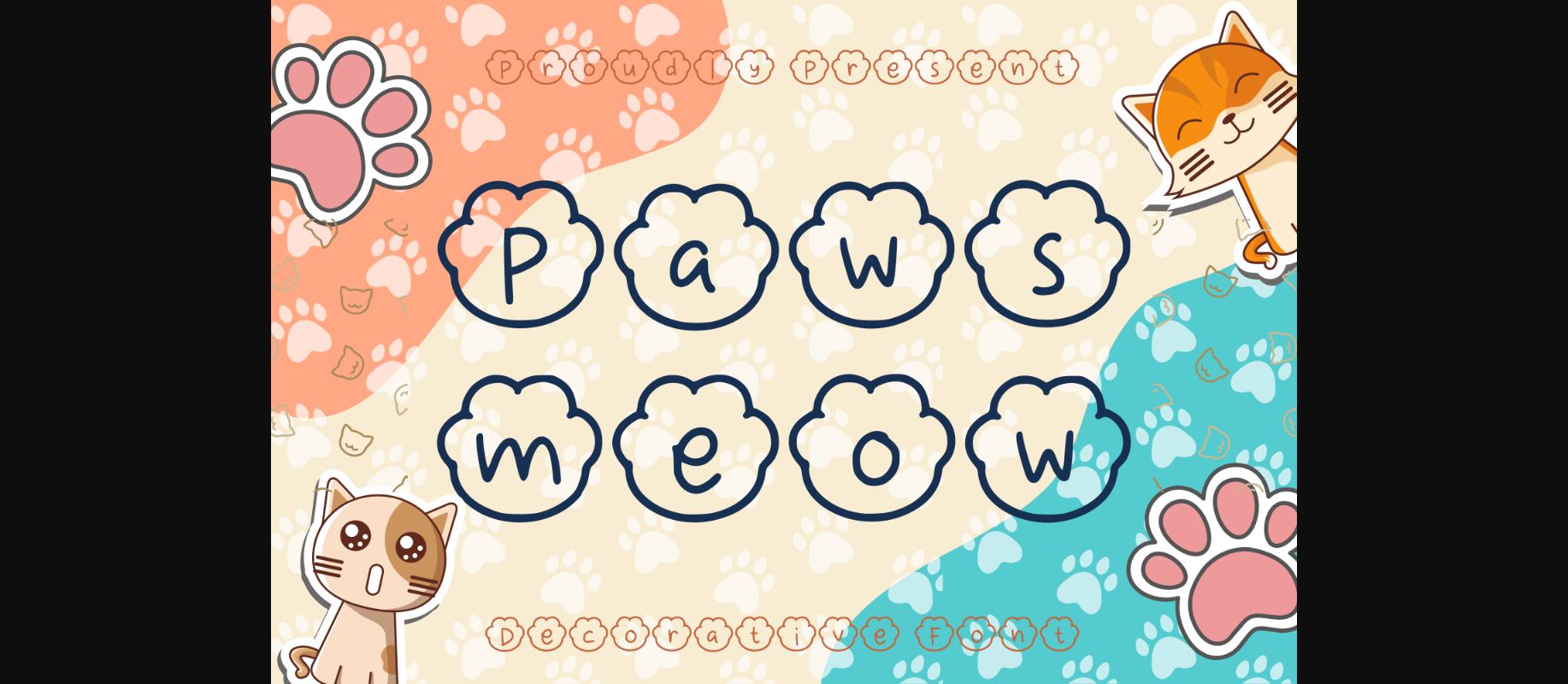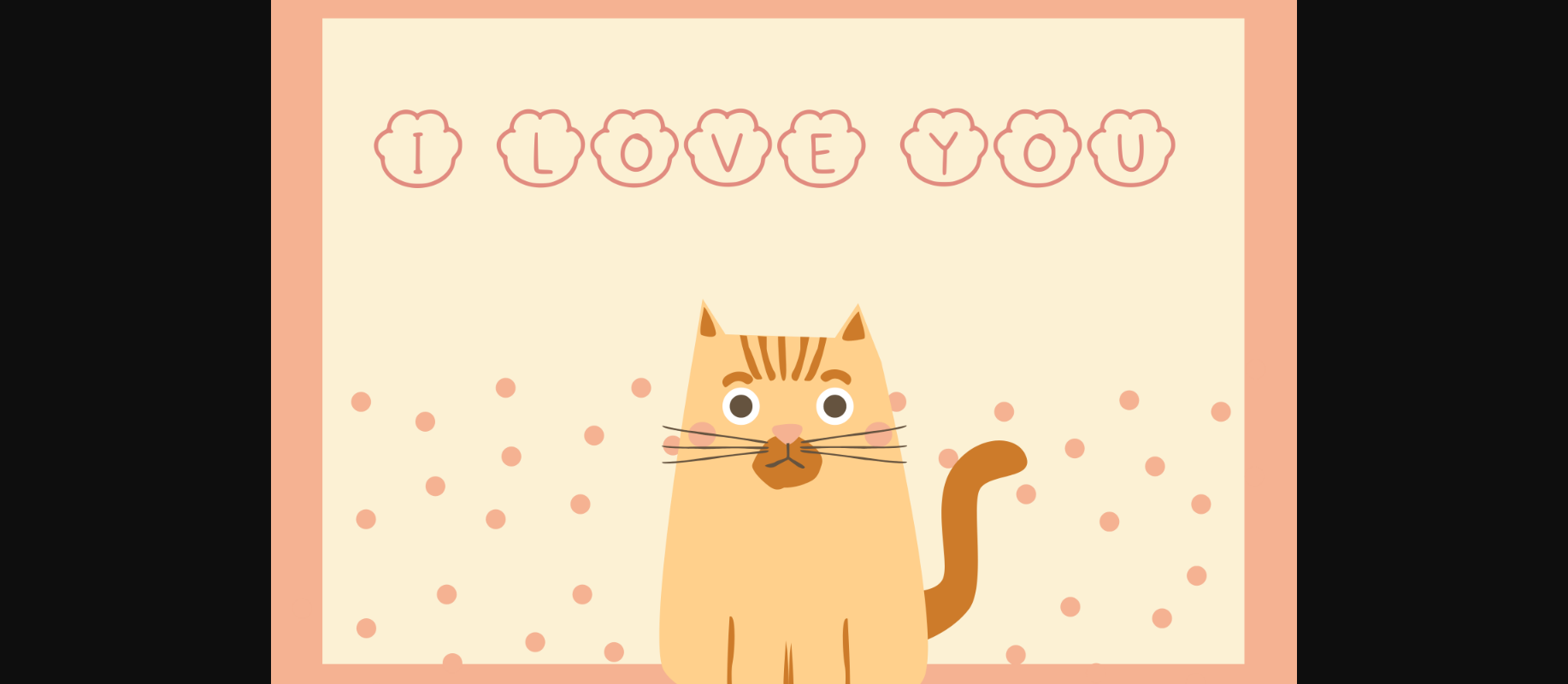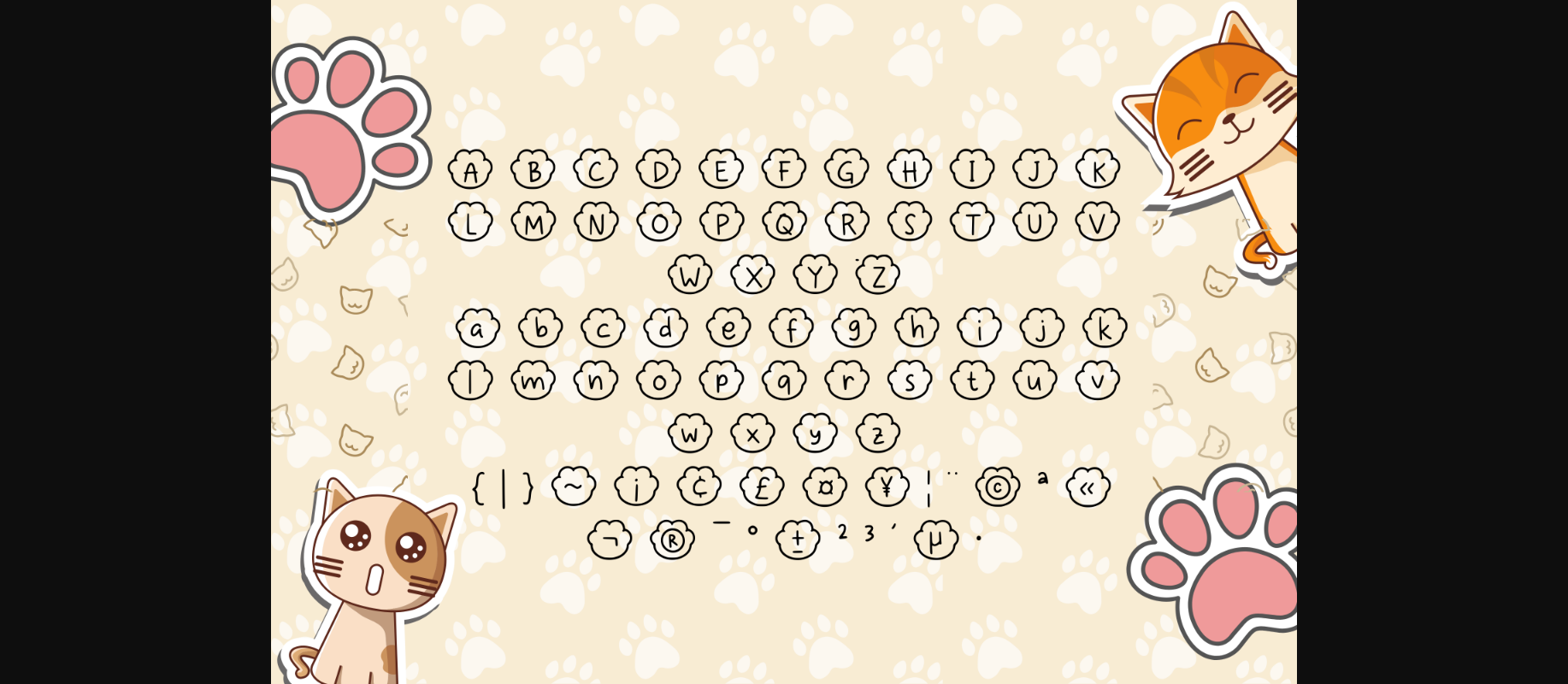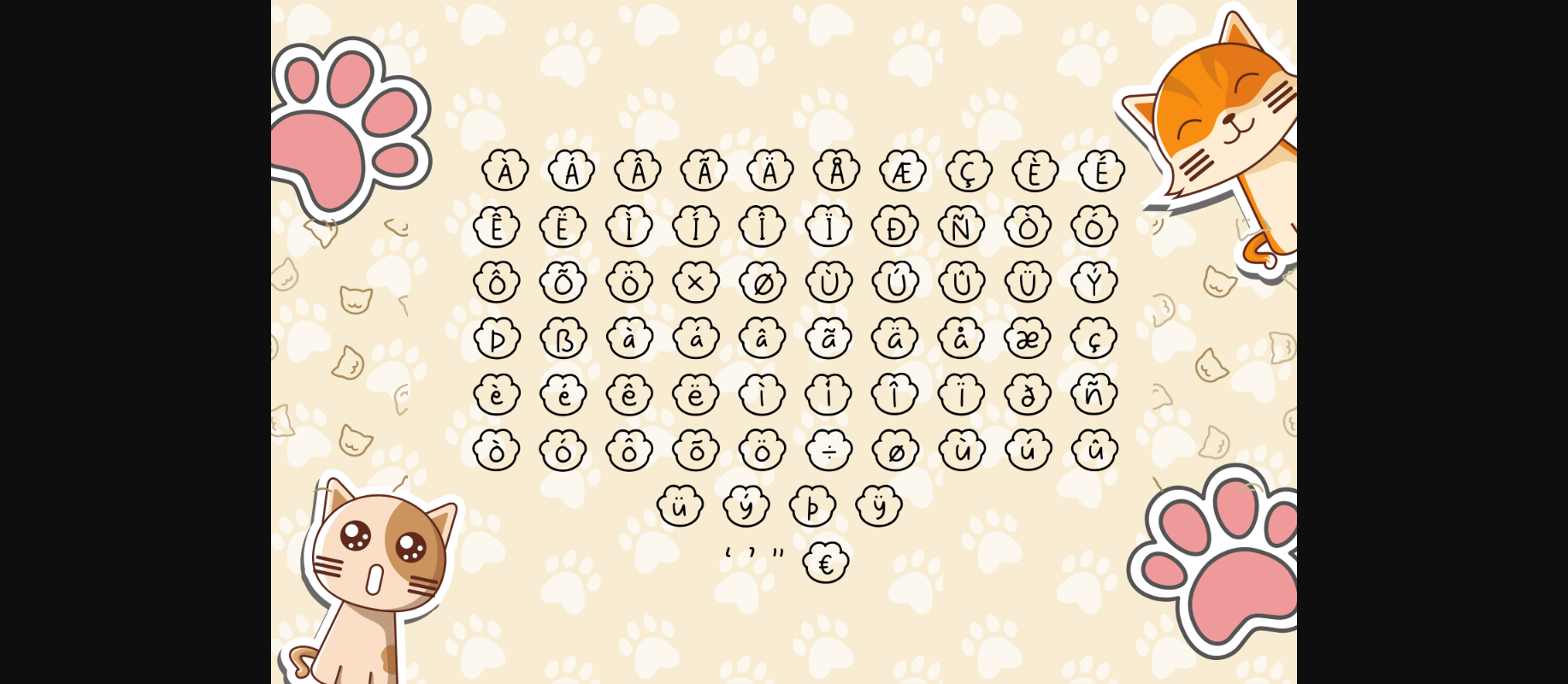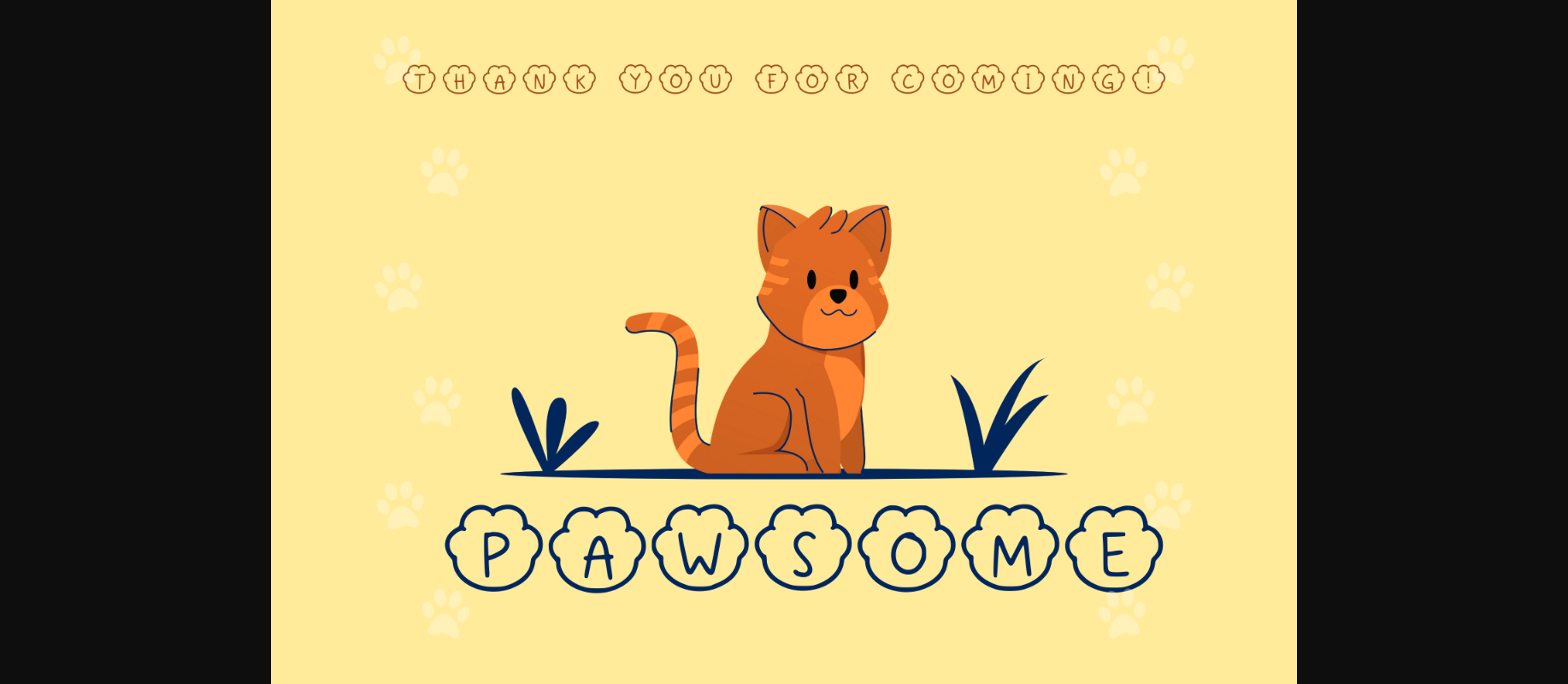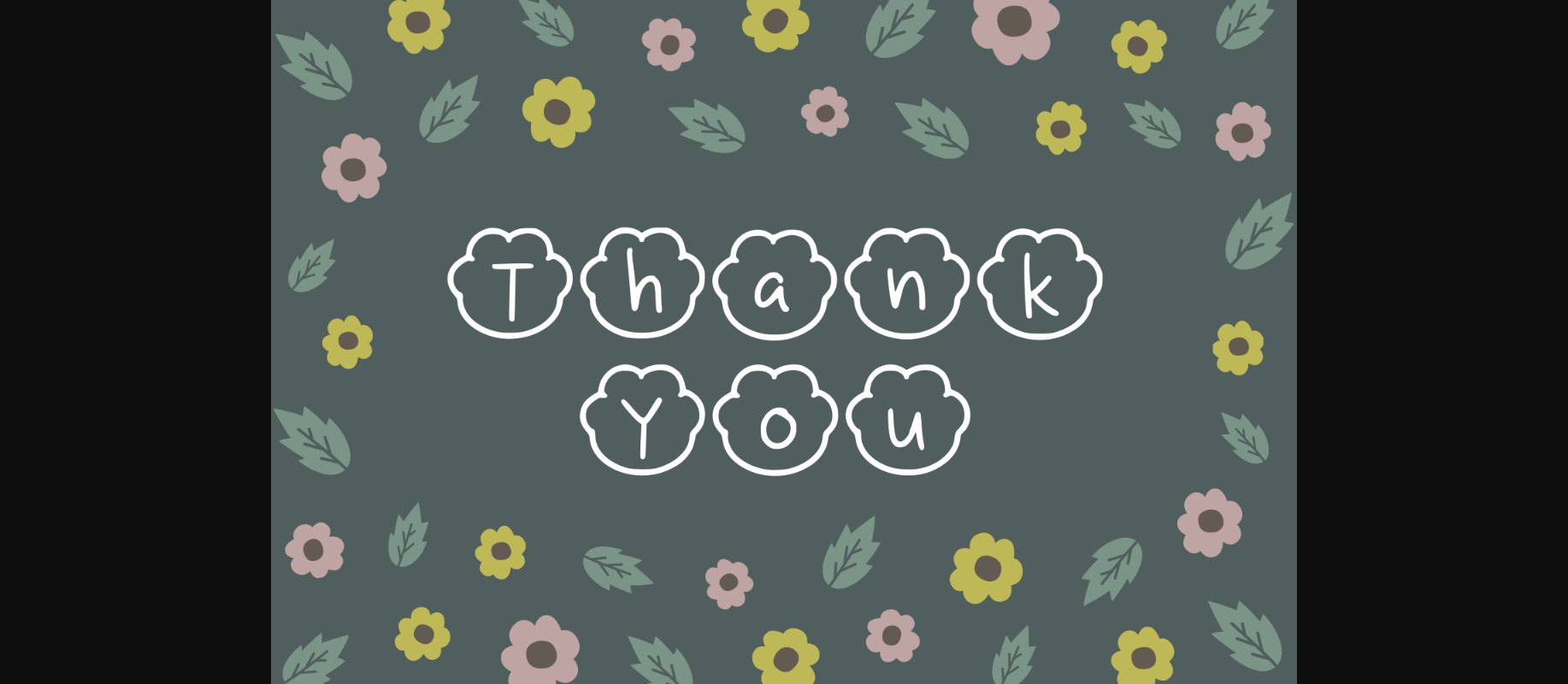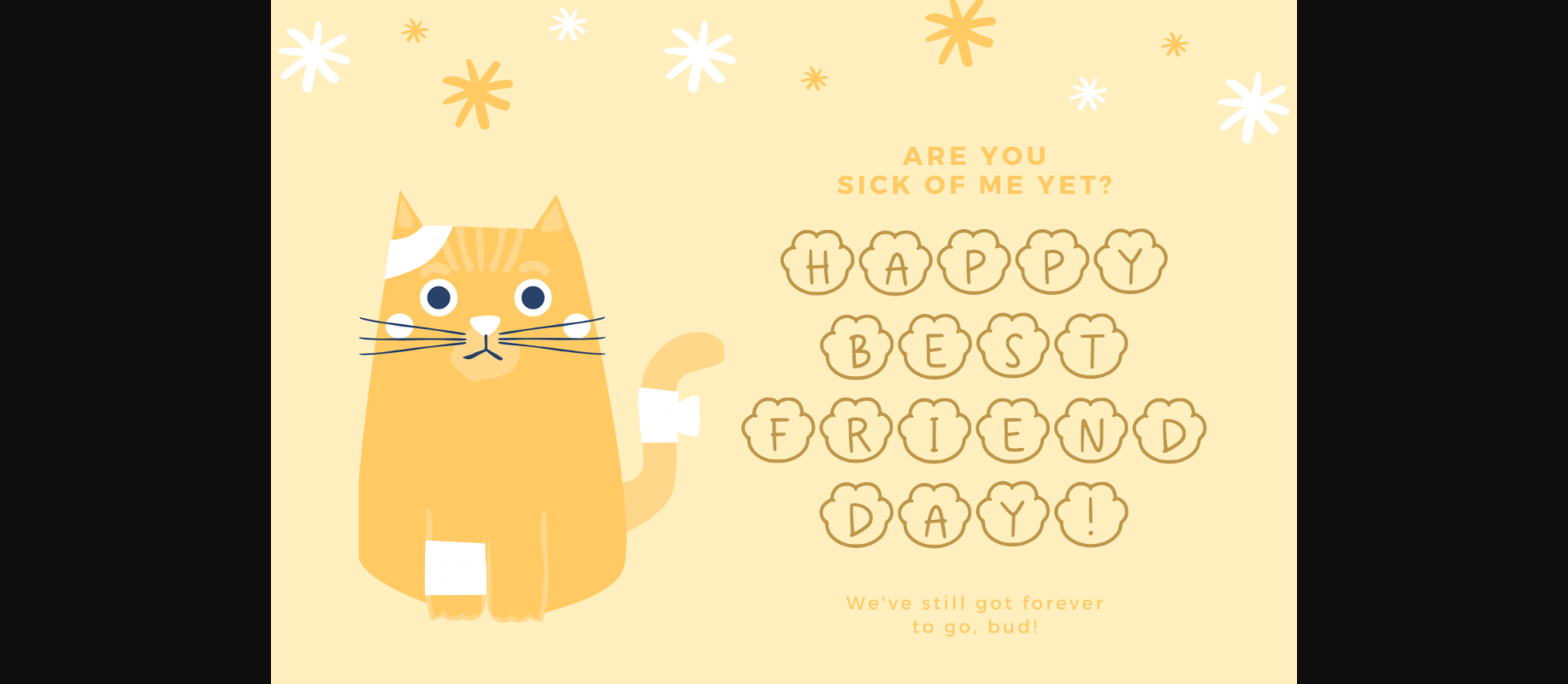
HomeDecorative FontsPaws Meow Font Decorative Fonts Paws Meow Font FacebookXPinterestWhatsApp 1 of 10 ... Paws Meow Font Poster 2... Paws Meow Font Poster 3... Paws Meow Font Poster 4... Paws Meow Font Poster 5... Paws Meow Font Poster 6... Paws Meow Font Poster 7... Paws Meow Font Poster 8... Paws Meow Font Poster 9... Paws Meow Font Poster 10... About Paws Meow Font Paws Meow is an adorable decorative font. Add this font to each of your pet related designs and notice how they instantly come to life. DOWNLOAD NOW People also explored Lovined Font Laila Script Font Capitol Pro Millstone Mizary Font Bernida Font Kinderust Font Kiddy Font School Font 307 0 TagsPaws Meow Font Previous articleAutism Jigsaw FontNext articleWelcome to Our Happy Home Font LEAVE A REPLY Cancel reply Comment: Please enter your comment! Name:* Please enter your name here Email:* You have entered an incorrect email address! Please enter your email address here Website: Save my name, email, and website in this browser for the next time I comment. Personal Use Free Glowing Personal Use Free Read more about this font Spring Personal Use Free Read more about this font Eits Personal Use Free Read more about this font Yumail Personal Use Free Read more about this font BLOG Best Fonts for YouTube Videos: Make Your Thumbnails Stand Out Best Fonts for YouTube Videos: Make Your Thumbnails Stand Out Choosing the right font can make a massive difference in how your YouTube videos perform.... 5 Fonts That Will Dominate Design Trends in 2026 Top 10 Handwritten Fonts That Elevate Your Designs Where to Buy American Fonts Online in 2024